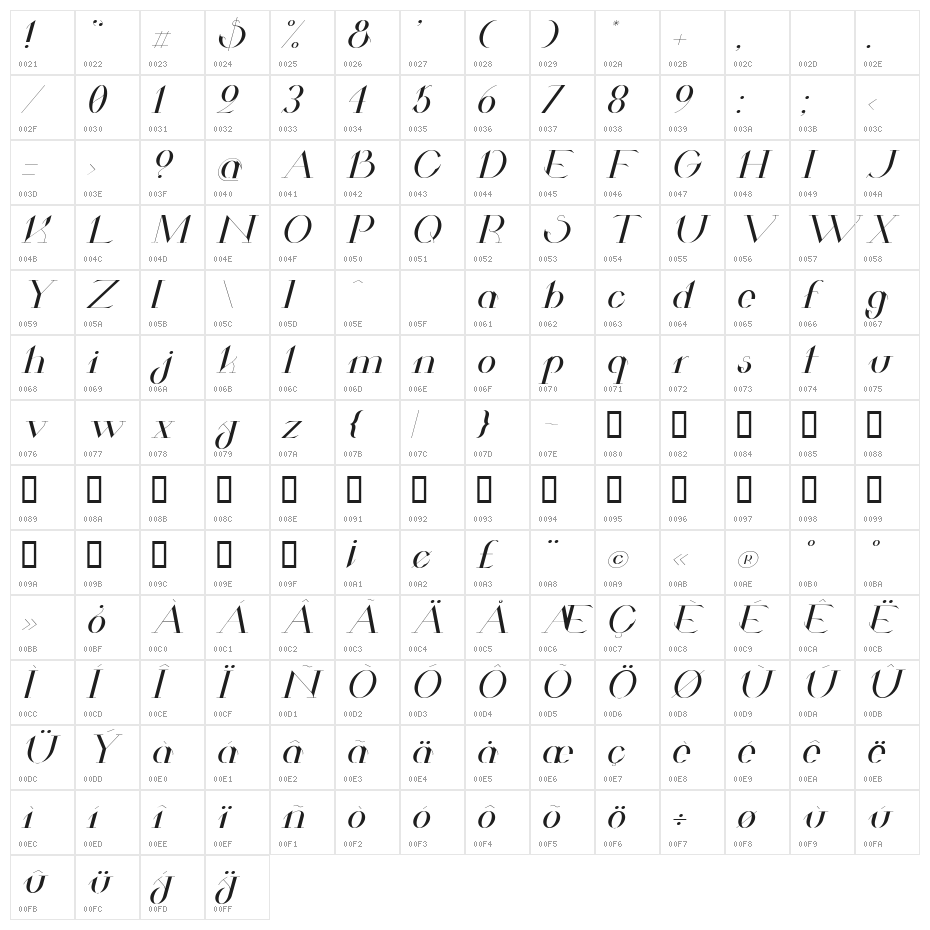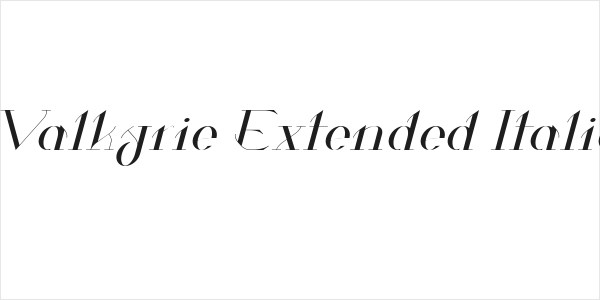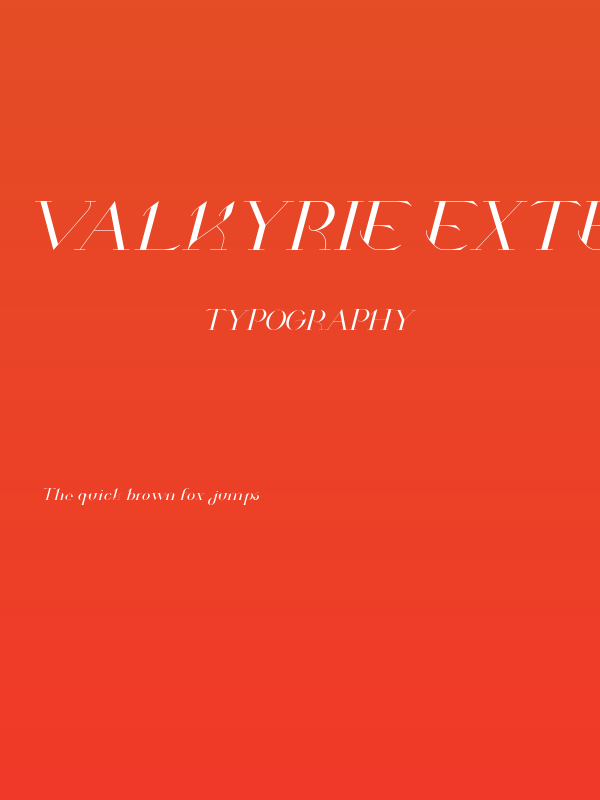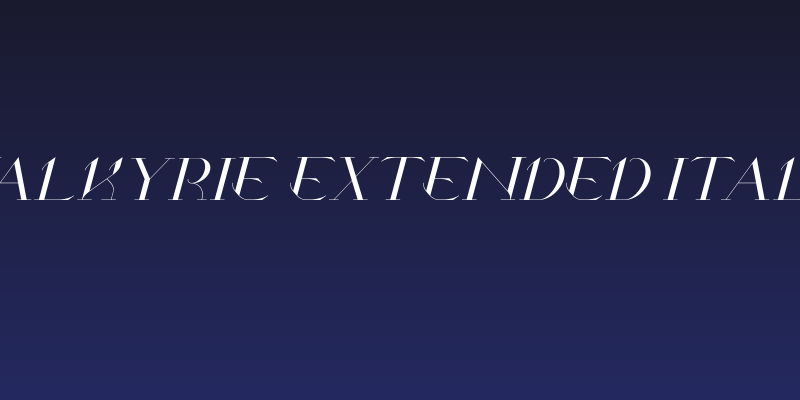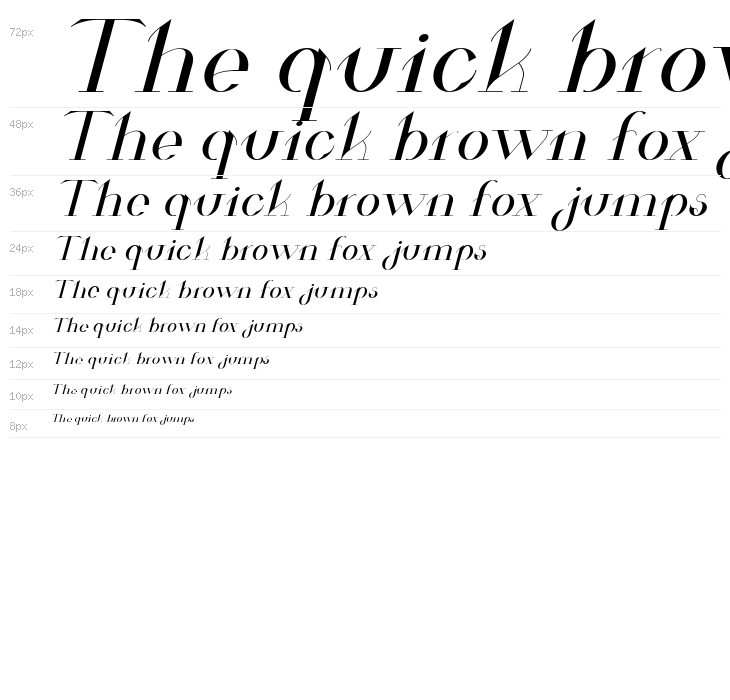
Valkyrie Extended Italic Font
Valkyrie Extended Italic Description
This elegant and sophisticated font features a distinct italic style with elongated and graceful letterforms. The characters exhibit a high contrast between thick and thin strokes, creating a dynamic and flowing appearance. The uppercase letters are tall and commanding, while the lowercase letters maintain a consistent slant, enhancing the overall fluidity. The numerals are stylishly integrated, matching the font's refined aesthetic. Special characters are thoughtfully designed, maintaining the font's cohesive look. This font's extended width gives it a unique presence, making it suitable for impactful designs.